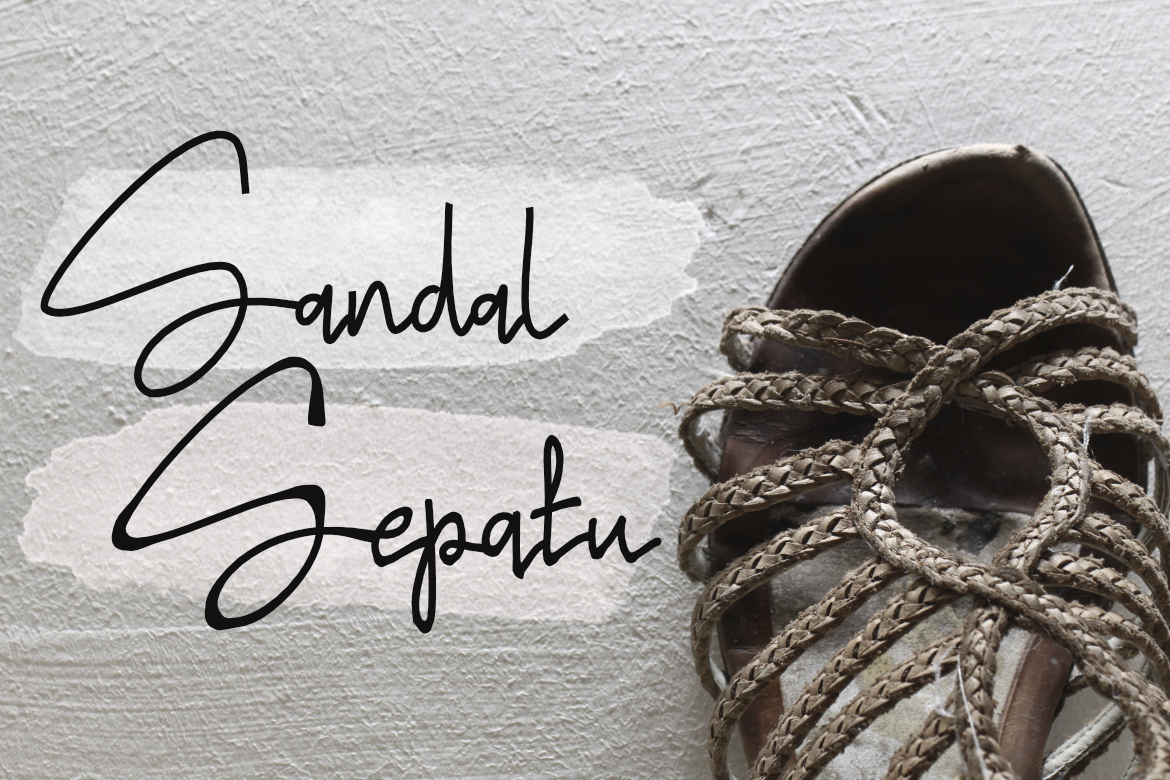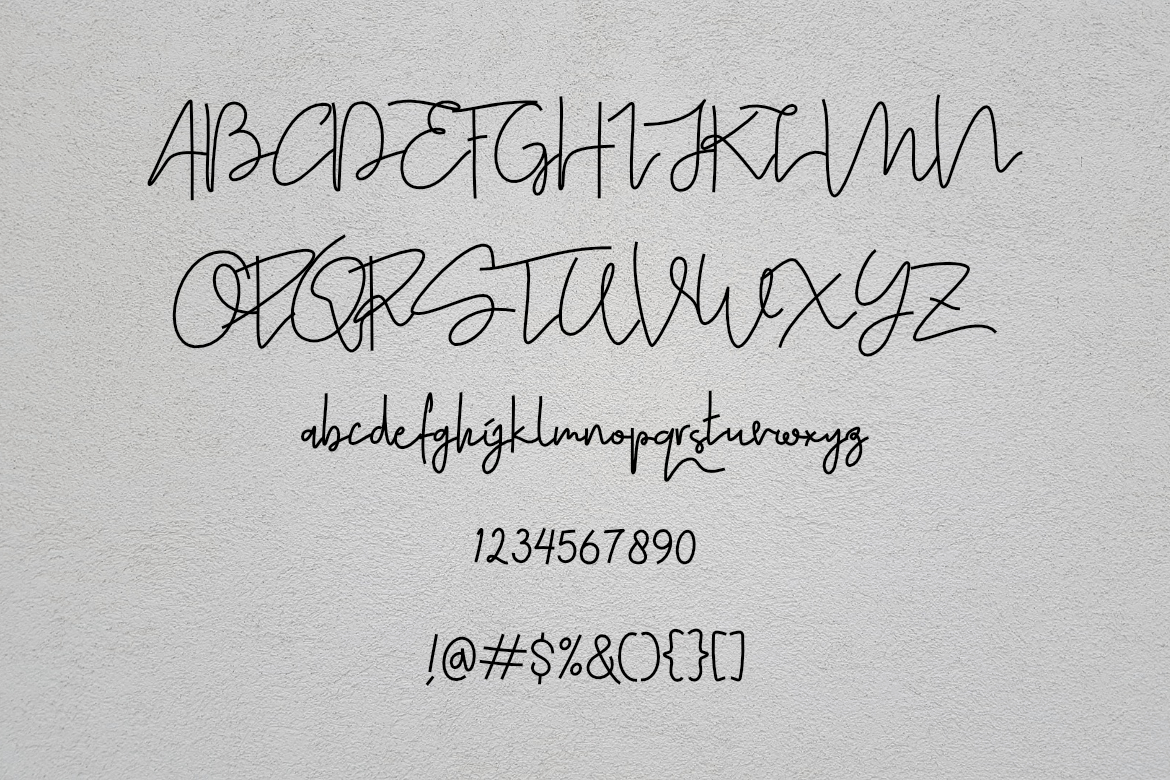
Sandal Sepatu Font
About Sandal Sepatu Font
Sandal & Sepatu are organic and friendly script fonts written in a cursive style. These are fonts that can handle editorial designs, but can also shine in more earthy designs.